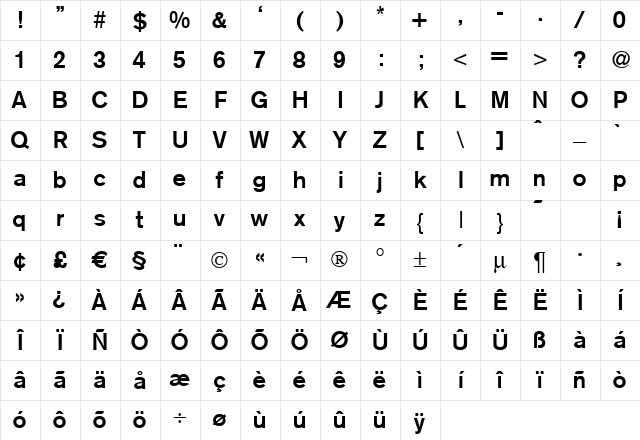
A750-Sans-Medium Regular
Design Context for A750-Sans-Medium
A750-Sans-Medium is a composed and adaptable typeface that performs quietly and consistently across a wide range of design contexts.
Pro Tip: Use A750-Sans-Medium in both headline and body roles to test its range before committing to a single application.